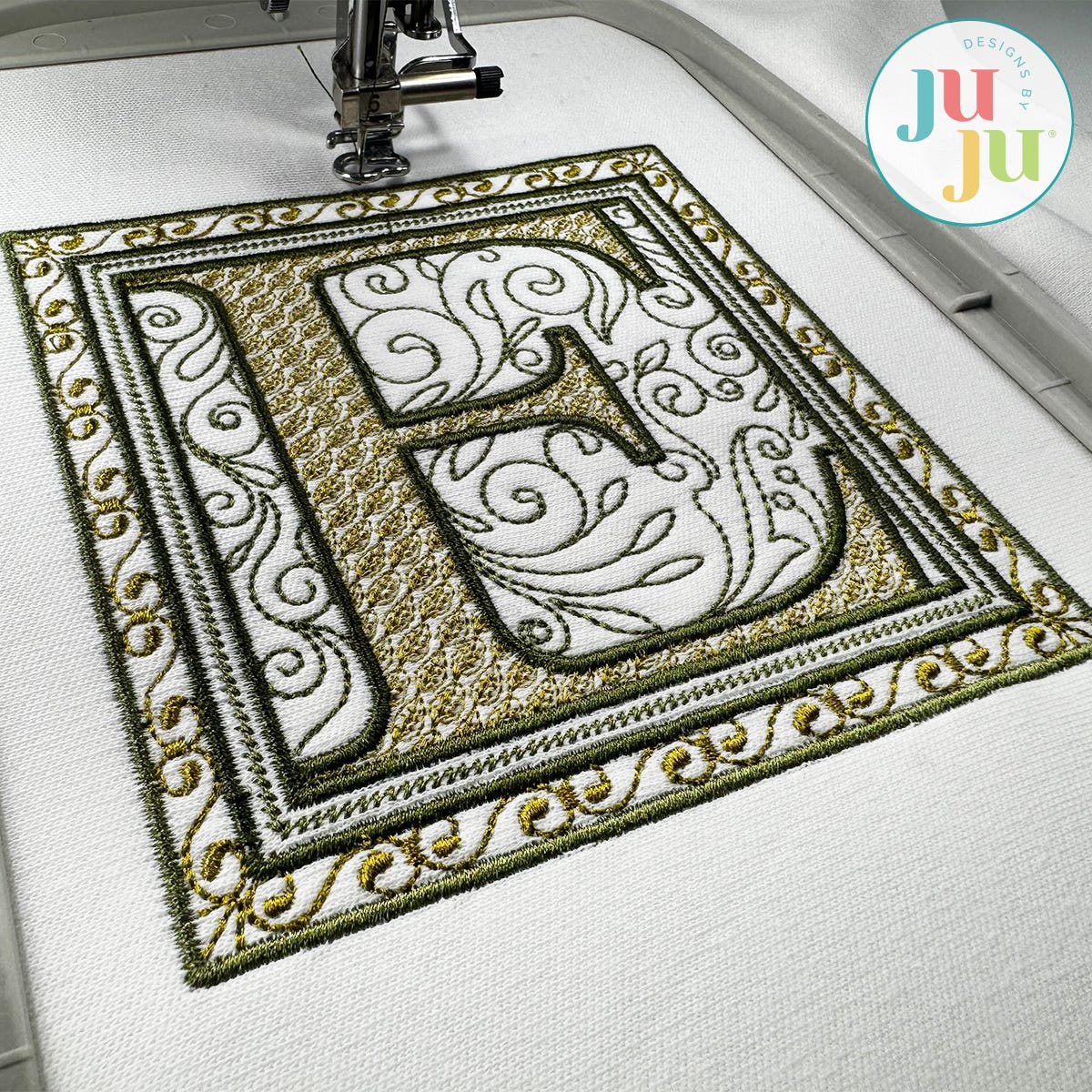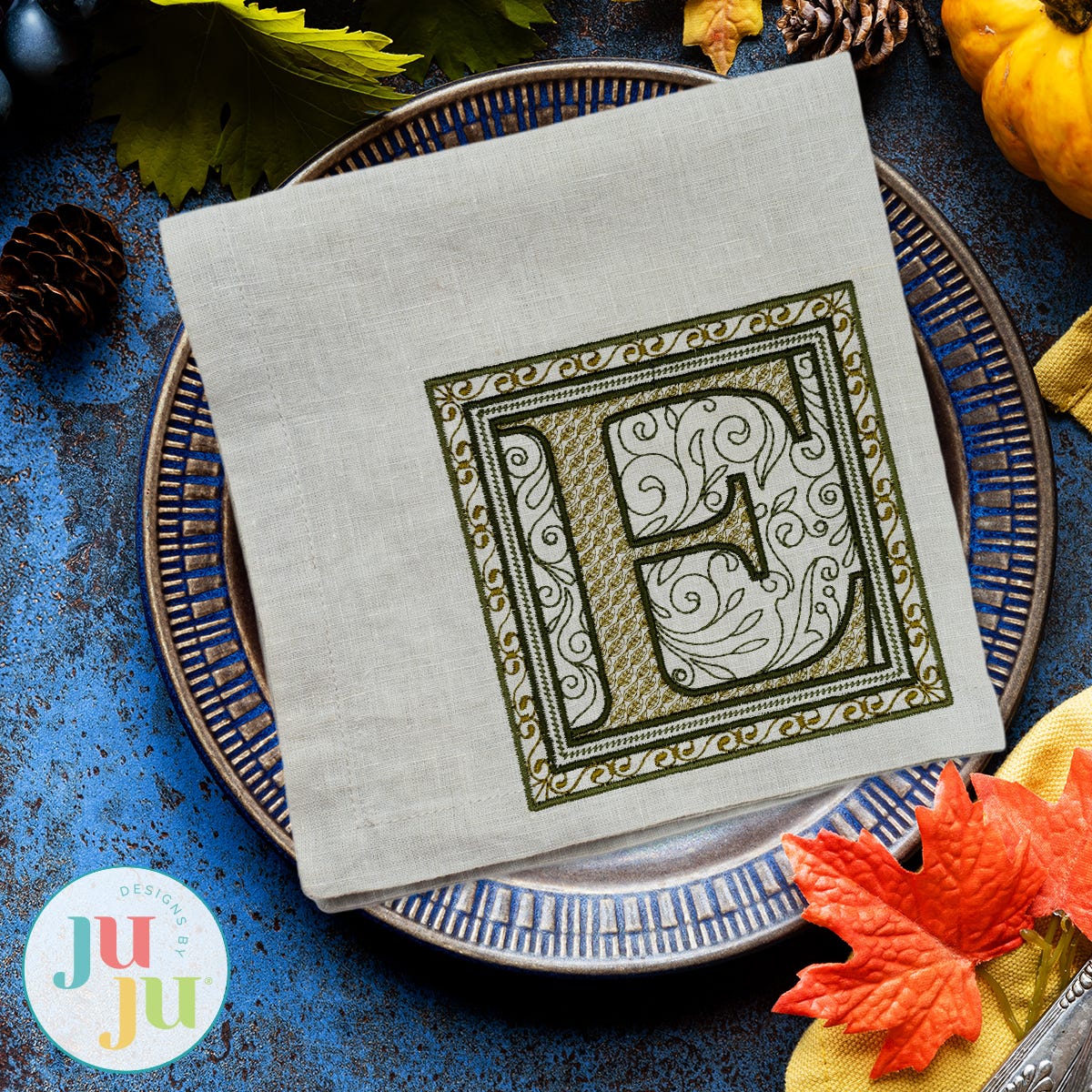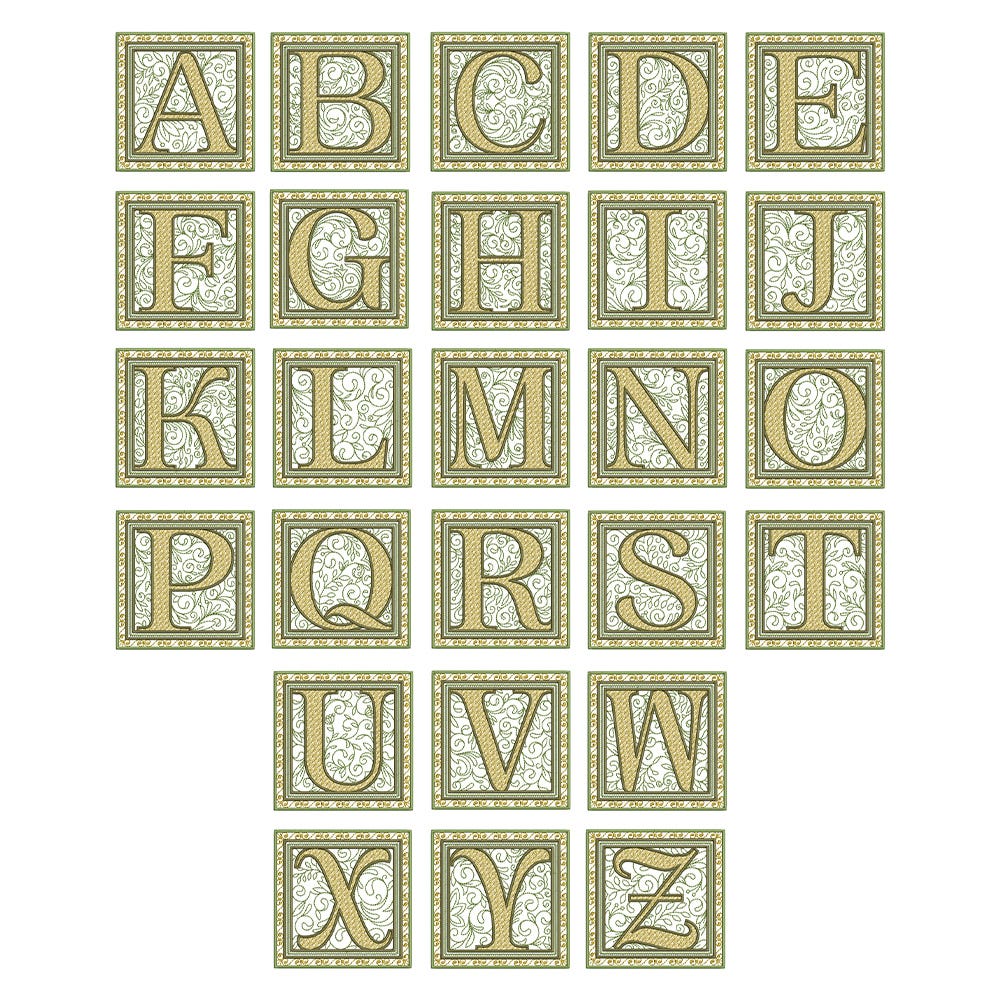
Olive Motif Filled Monogram Embroidery Font
Add timeless elegance to your stitching with our Olive Monogram! This beautiful embroidery-only monogram features classic serif-style letters filled with a delicate leafy motif, surrounded by graceful swirls and vines, and framed with elegant decorative borders.